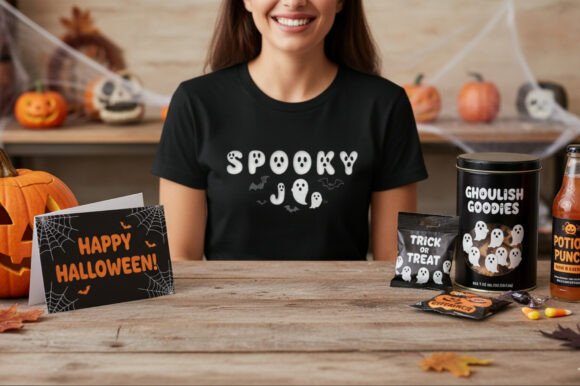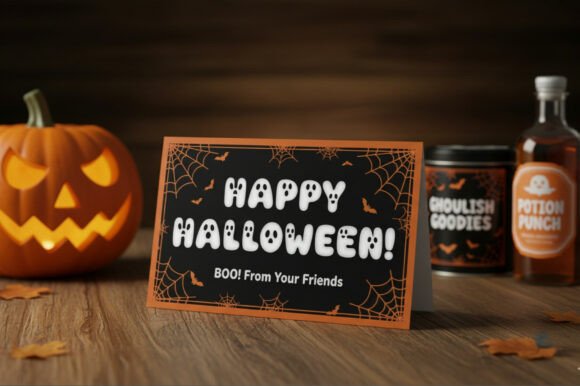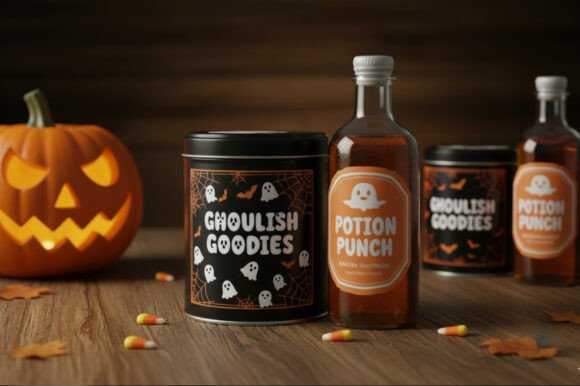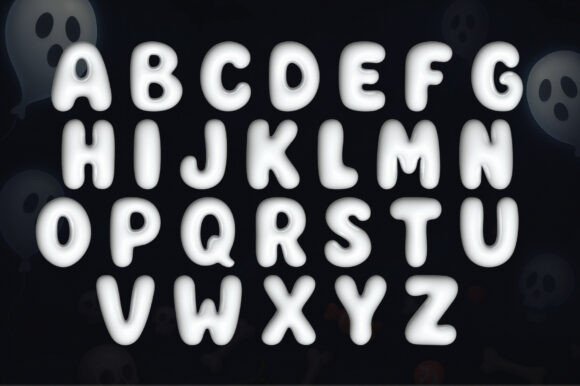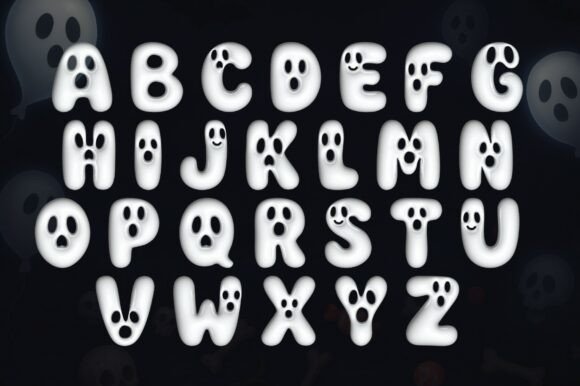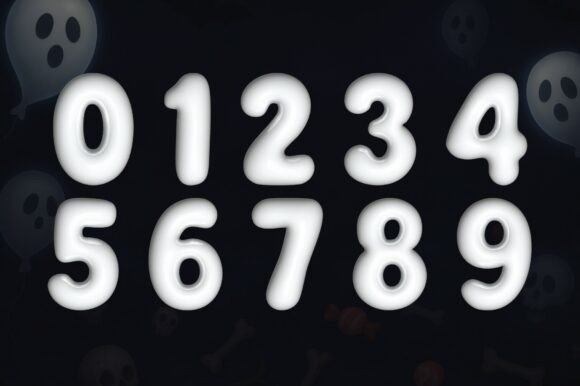
Get Ready for a Spooky Good Time with Ghost Balloon 3D Font
As a designer, you know the excitement of brainstorming a new project – the blank canvas, the endless possibilities, and the thrill of bringing your vision to life. And what better way to start than with a typeface that sets the tone for a fun and spooky celebration? You’ve probably stumbled upon the perfect font to capture the essence of Halloween: Ghost Balloon 3D Font. This charming and eerie typeface is designed to resemble floating ghost balloons, adding a playful and whimsical touch to your designs.
Whether you’re crafting party invitations, posters, or packaging, Ghost Balloon 3D Font is the perfect addition to your toolkit. Its glossy 3D style and cute creepy look make it an ideal choice for designers seeking to add a haunting touch to their projects. With Ghost Balloon 3D Font, you’ll be the master of creating spooky yet adorable designs that will leave a lasting impression on your audience.
- Unique characteristic: The 3D effect creates a sense of depth and dimensionality, making it perfect for titles, headings, and other display fonts
Ghost Balloon 3d Font Review
Overall, I’m impressed with the Ghost Balloon 3d Font. Here’s what I like about it: ✨
- The font has a unique, eye-catching design that’s perfect for creating a spooky or eerie atmosphere.
- The 3D effect gives the font a nice depth and dimension, making it stand out from other fonts.
- The font is highly customizable, with options to change the color, size, and style of the 3D effect.
- The font may not be suitable for all types of projects, particularly those that require a more professional or serious tone.
- The font can be quite busy, which may make it difficult to read in certain situations.
- The customization options can be overwhelming, which may make it difficult for non-designers to use the font effectively.
Overall, I think the Ghost Balloon 3d Font is a great choice for designers who want to add some personality and flair to their projects. While it may not be suitable for every project, it’s a great option for those who want to create a spooky or attention-grabbing atmosphere.
The “Ghost Balloon 3d Font” is ideal for:
- Creating eye-catching headings and titles
- Adding 3D effects to designs
- Creating unique